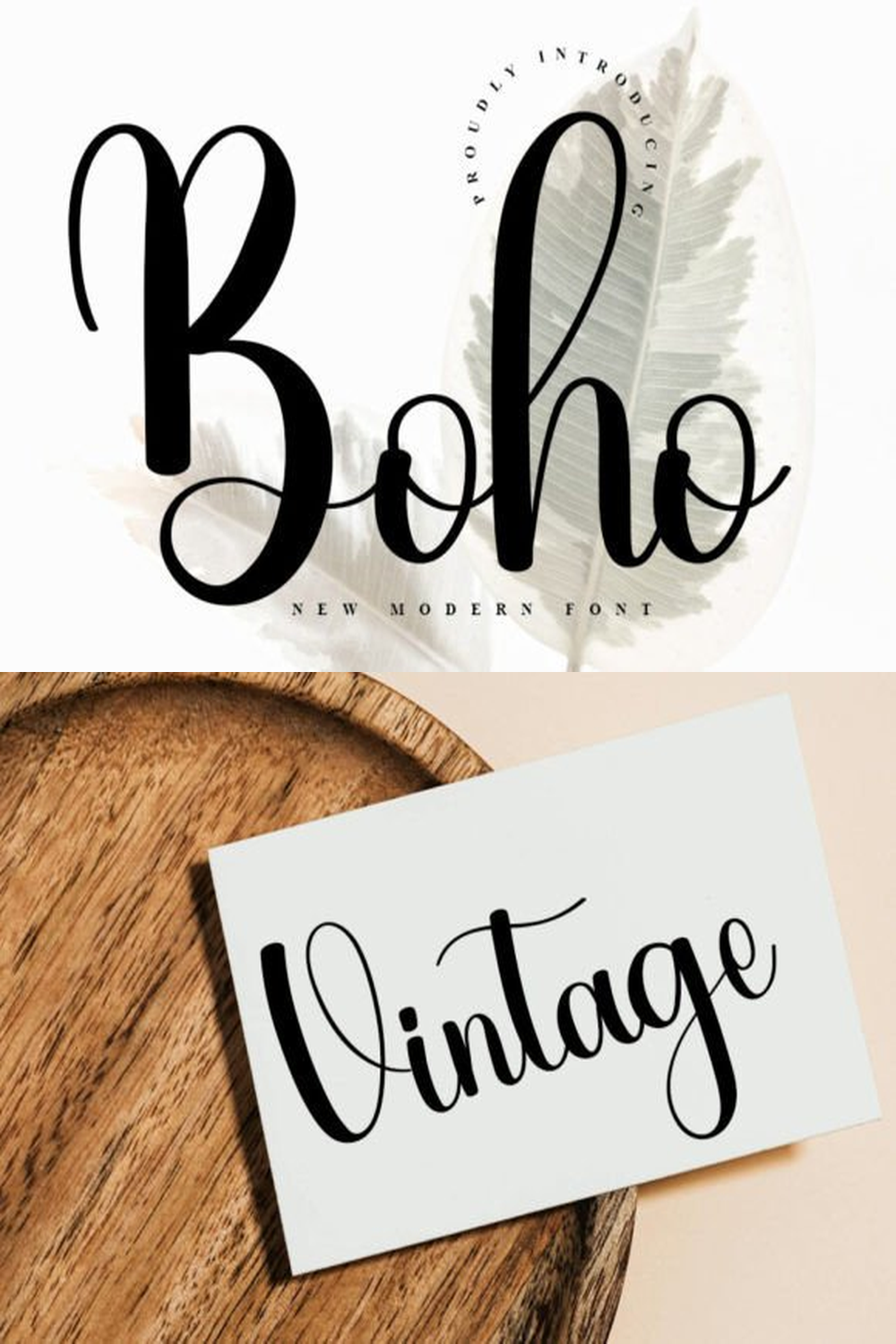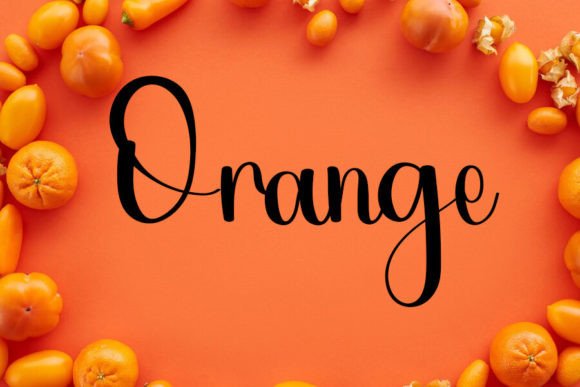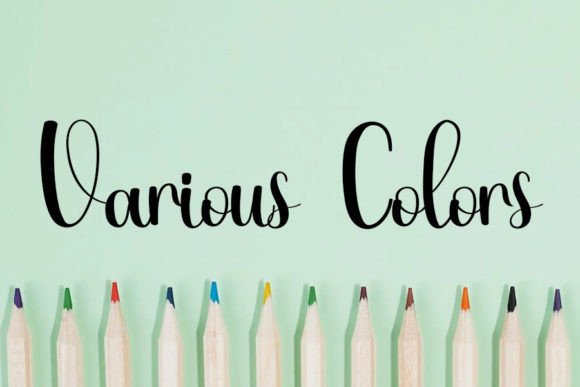
About the Boho Font
Crafted with precision, the Boho Font is ready to bring your ideas to life. Boho is a delicate, elegant, and flowing handwritten font. It has beautiful and well-balanced characters and as a result, it matches a wide pool of designs.
Boho Font Usage Examples